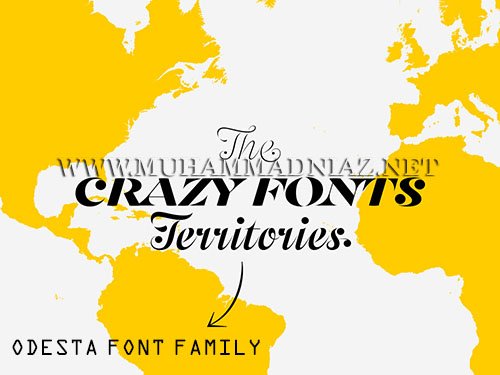
Odesta is a decorative script typeface with detached strokes and pronounced ball terminals. It comes in 7 weights with small capitals, swash capitals, plenty of ligatures, and initial & final forms for each of the lowercase letters. As many other Urtd typefaces, Odesta started as a custom lettering.